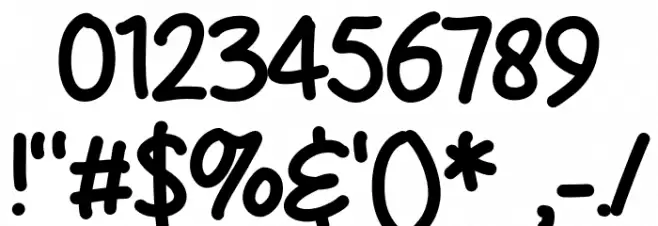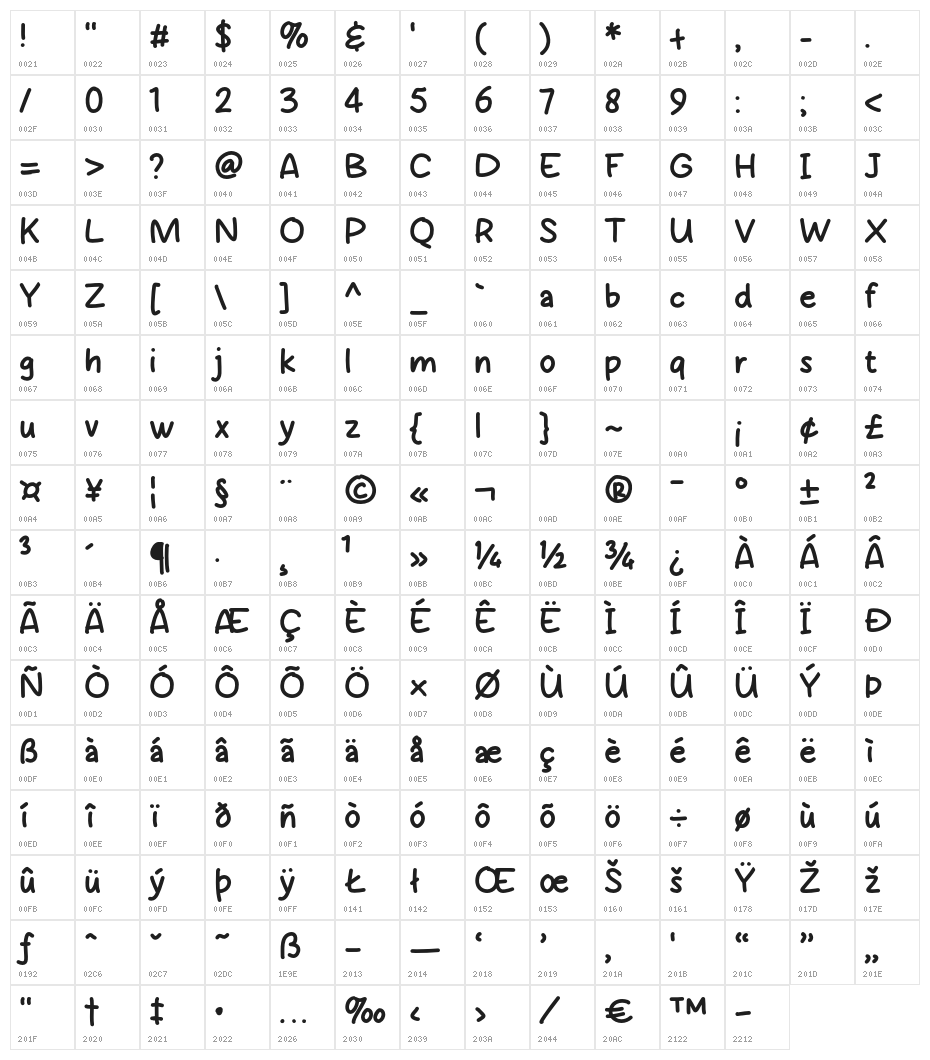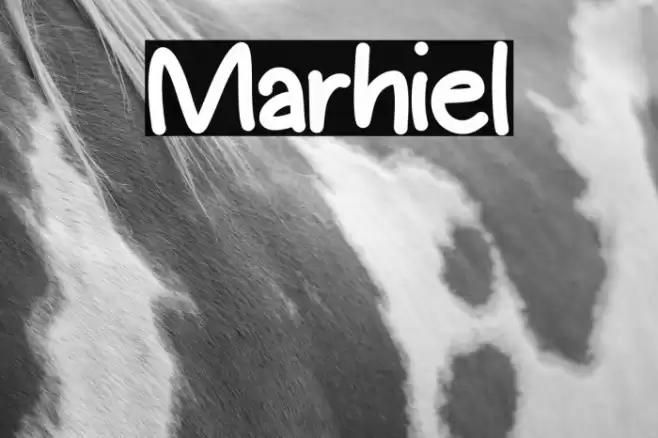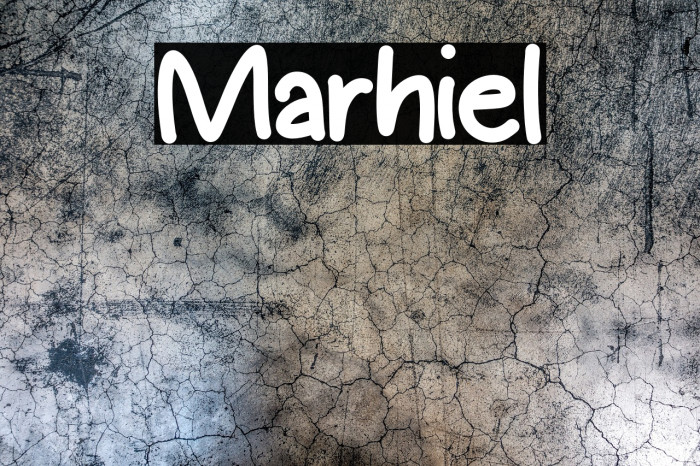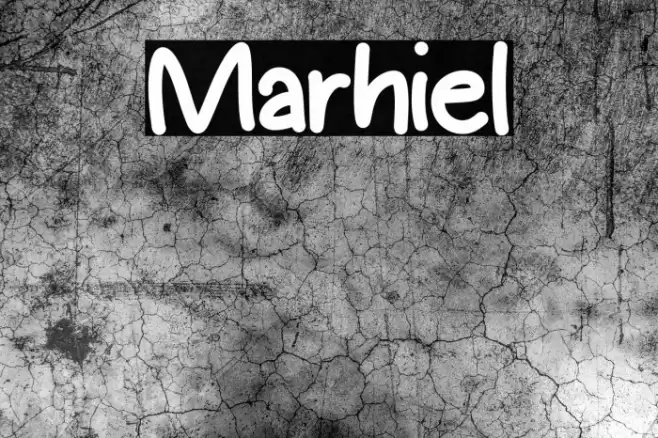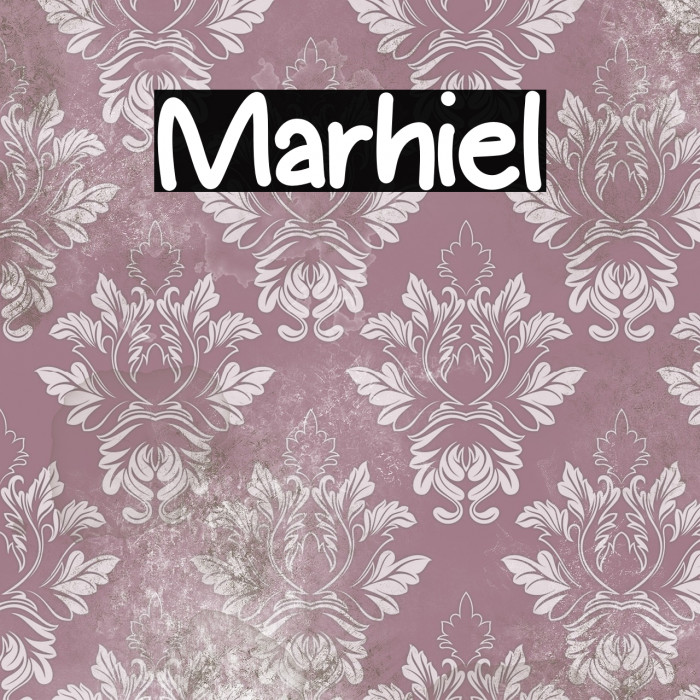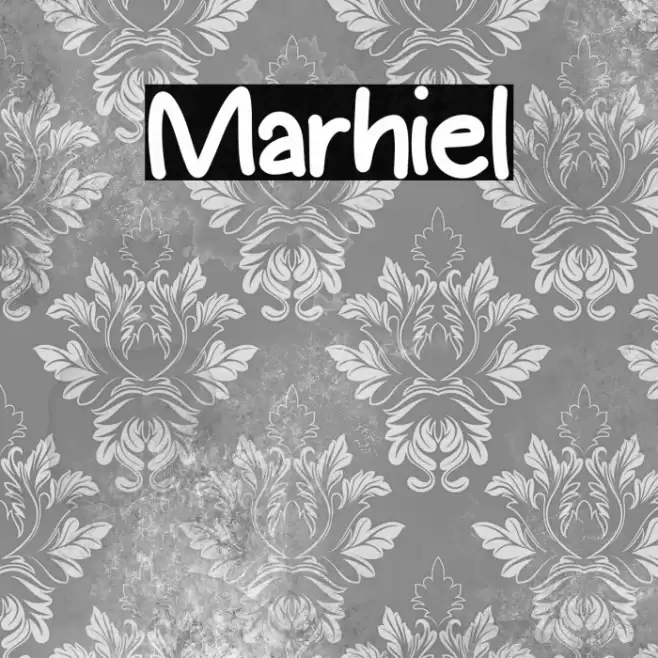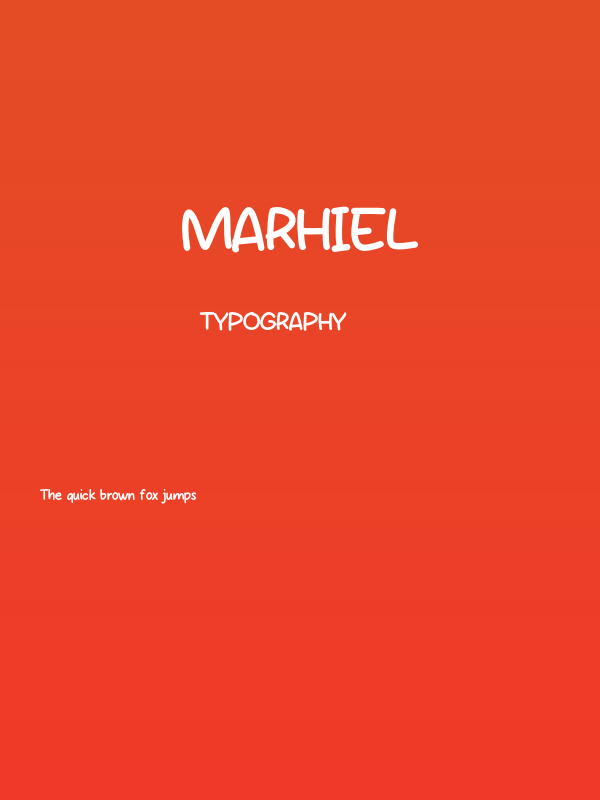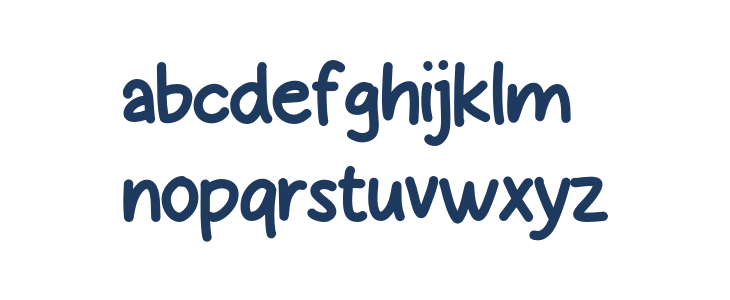
Marhiel Font
Marhiel Description
This font exhibits a playful and informal style, characterized by its rounded and slightly irregular letterforms. The strokes are consistent in thickness, giving it a uniform appearance. The uppercase and lowercase letters maintain a friendly and approachable look, making it suitable for casual and fun design projects. The numbers and special characters follow the same style, ensuring cohesion across all elements. Its handwritten feel adds a personal touch, making it ideal for projects that require a human element.
| Proposed Projects | Ideal for children's books, greeting cards, playful branding, and informal invitations. |